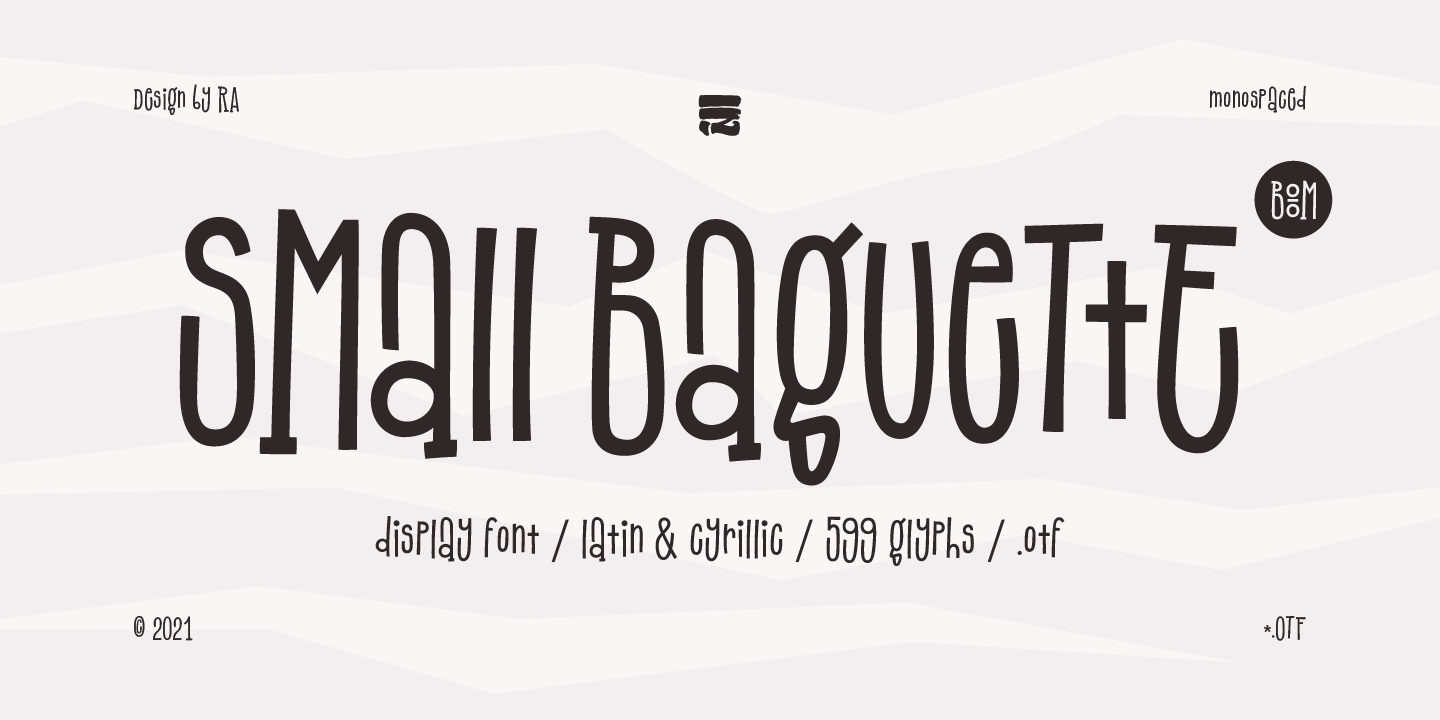
Small Baguette Font is perfect for French bakery signage, artisan bread shop branding, Parisian café menus, boutique patisserie labels, rustic bistro materials, artisanal food packaging, French cooking classes, countryside market stalls, European delicatessen displays, and authentic French culinary publications.
What makes Small Baguette Font so exciting is its charming embodiment of French artisanal baking tradition and intimate café culture through delicately crafted letterforms that capture the warm essence of neighborhood boulangeries and cozy Parisian street corners. The font's design philosophy celebrates the simple pleasures of freshly baked bread and authentic French culinary heritage, featuring gentle curves, handcrafted proportions, and rustic details that mirror the organic shapes of crusty baguettes and the time-honored traditions of French baking. Each character feels lovingly shaped by a master baker's hands, creating a visual language that instantly communicates artisanal authenticity, French cultural warmth, and the irresistible appeal of traditional European craftsmanship.
The Small Baguette Font family includes artisanal variations: Regular, Bold, Light, Medium, Condensed, Extended, Italic, Rustic, and Handcrafted styles. Each variation maintains the font's characteristic French bakery charm while offering different levels of artisanal texture and culinary detail for various authentic food and hospitality design applications.
When searching for a typeface that embodies the essence of French artisanal culture and authentic bakery traditions, Small Baguette Font Free Download represents the perfect fusion of Parisian charm with typographic craftsmanship that elevates any project to new levels of culinary authenticity and French cultural appeal.
The lovingly crafted letterforms of Small Baguette Font demonstrate superior attention to artisanal design principles, featuring organic proportions, handcrafted spacing, and rustic curves that ensure optimal readability while maintaining the font's distinctive French bakery character. Its versatile design adapts beautifully from intimate bread labels to charming café window displays.
Professional designers working on artisanal food brands, French restaurants, and authentic culinary experiences particularly value the font's ability to convey French authenticity, artisanal quality, and neighborhood charm. The typeface works exceptionally well for projects targeting food lovers, Francophiles, and anyone seeking to project authentic positioning and traditional French craftsmanship.
The comprehensive OpenType features of Small Baguette Font include artisanal alternates, handcrafted ligatures, and specialized French characters that enable designers to create authentic bakery typography while maintaining the font's distinctive artisanal character throughout all design elements and French culinary applications.